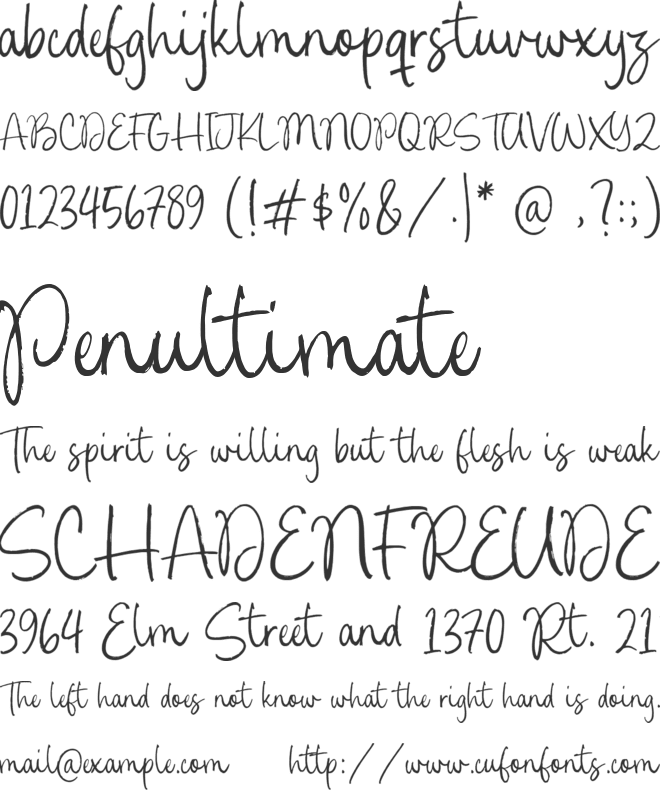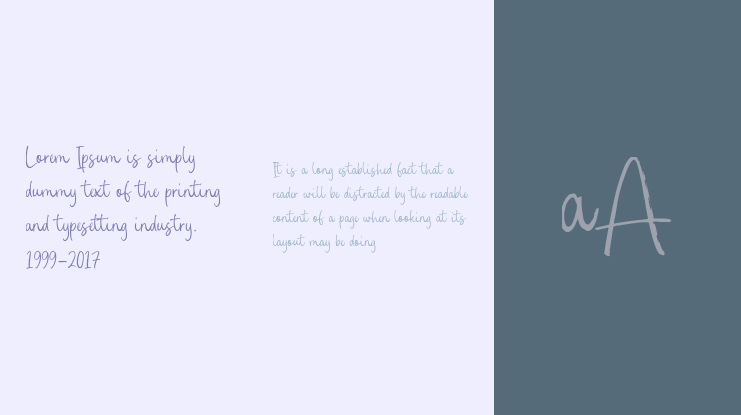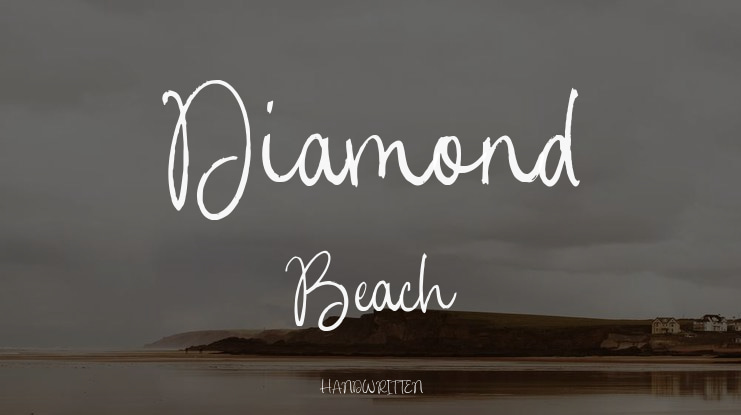
Diamond Beach Font
Palmera Beach is a vibrant hand-brushed script font that exudes a relaxed, beachy vibe. With its fluid strokes and playful curves, this font captures the essence of laid-back coastal living. It's perfect for invitations, branding, and casual designs, adding a touch of warmth to any project. Ideal for summer events and tropical themes.